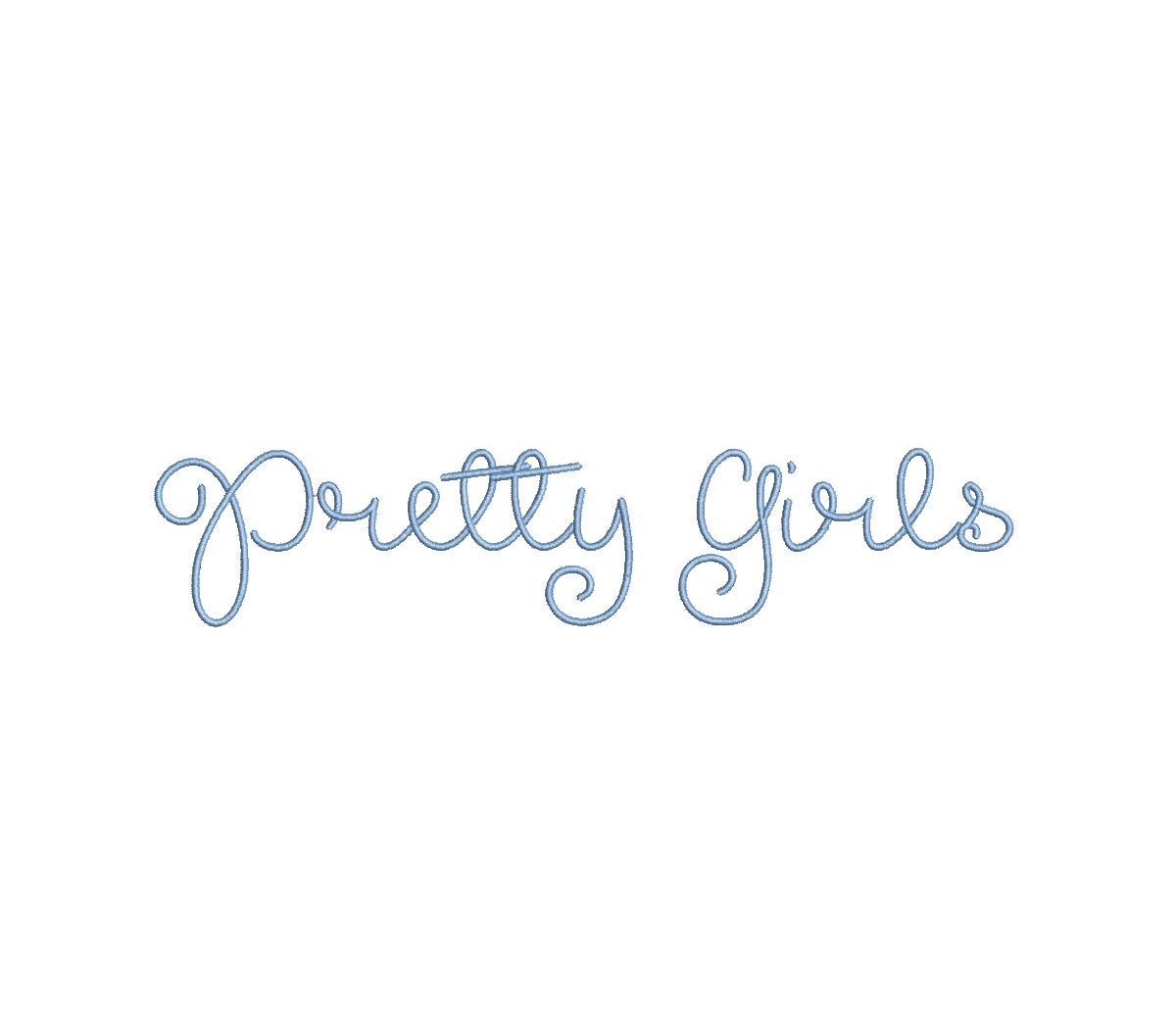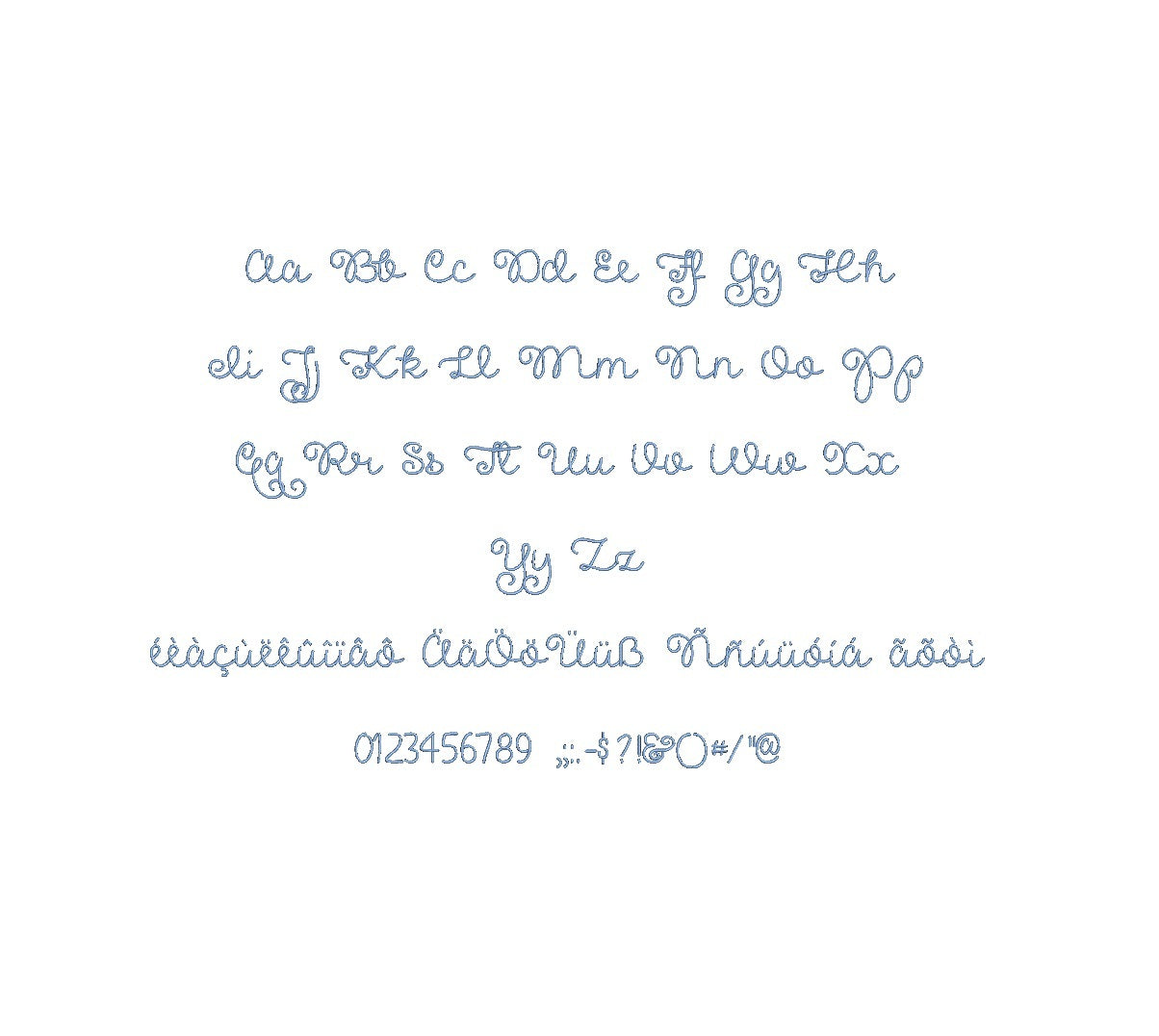
Unleash your creativity with the enchanting 'Pretty Girls Regular ESA' font, tailor-made for embroidery enthusiasts. This delightful typeface infuses your designs with charm and grace, making them truly stand out. Crafted to perfection, it ensures seamless integration into your digitizing workflow with compatibility for Wilcom Studio e4.5.6 and Hatch 3 versions and above. Its smooth lines and precise curves guarantee flawless stitch quality, enhancing your embroidery projects. Ideal for monograms, quotes, and decorative elements, this ESA font breathes life into your creations. Elevate your embroidery game and embrace the allure of 'Pretty Girls Regular ESA' font today!